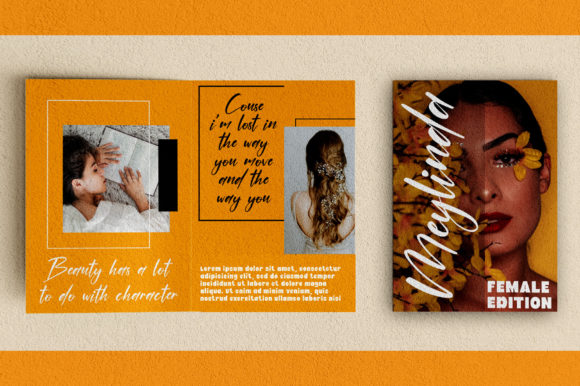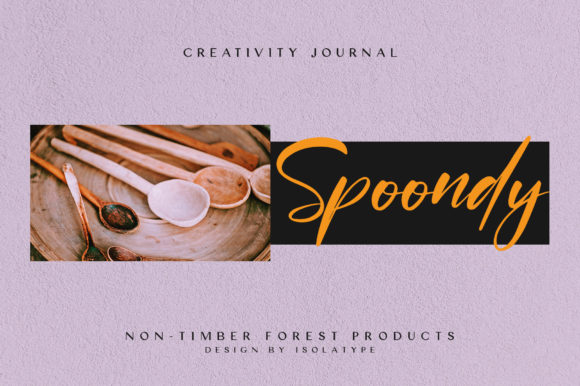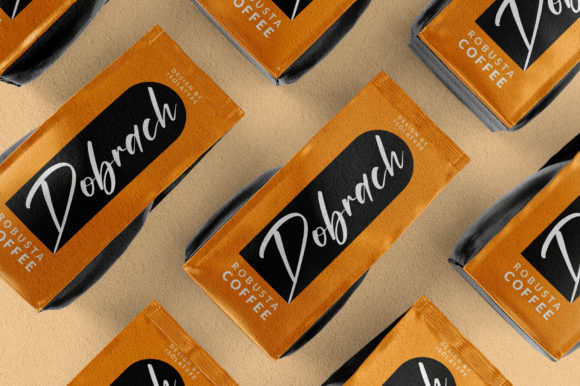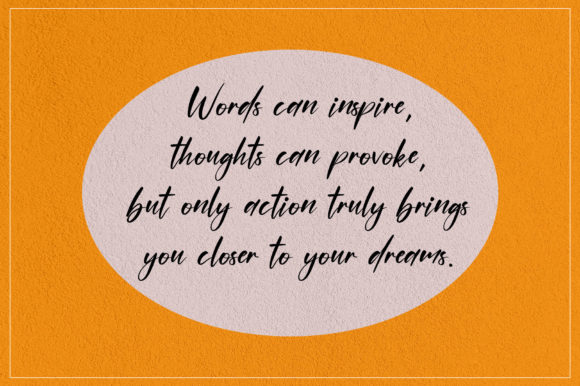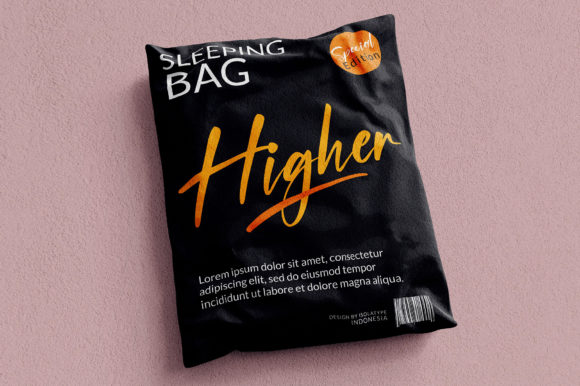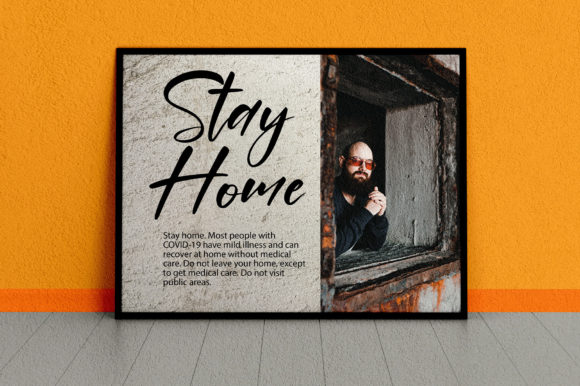
The Ultimate Guide to Ganboster Font: Elevate Your Designs with a Casual yet Trendy Touch
I’ll never forget the moment I stumbled upon the perfect font for a client’s project. It was a casual, handwritten font that added a touch of nostalgia and playfulness to the design. That font was Ganboster, and it instantly became my go-to for any project that needed a stylish and confident vibe. In this article, I’ll share my love for Ganboster, its features, and how to make the most of it in your designs.
An Honest Review of Ganboster Font
What I Love About Ganboster ✨
- ✅ Unique and trendy: Ganboster has a distinct, casual feel that’s perfect for headlines and logotype projects.
- ✅ Dynamic and confident: The font exudes a sense of strength and energy, making it ideal for designs that need a bold statement.
- ✅ Nostalgic character: Ganboster has a retro vibe that adds a touch of warmth and personality to your designs.
- ✅ Highly versatile: It works well for a wide range of projects, from branding and advertising to packaging and digital media.
- ⚠️ Limited use in body text: While Ganboster is perfect for headlines, it may not be the best choice for body text due to its casual, handwritten nature.
- ⚠️ Some letter combinations may not work well: As with any font, some letter combinations may not flow smoothly, so it’s essential to test and adjust as needed.
The Backstory of Ganboster Font
While the true story of Ganboster’s creation may be unknown, it’s easy to imagine a designer with a passion for handwritten fonts and a desire to create something unique and trendy. Perhaps they drew inspiration from vintage signs, street art, and graffiti, combining these influences to create a font that’s both nostalgic and modern.
| Font Name | Ganboster Font |
| What is Ganboster font best used for? | Ganboster is perfect for headlines, logotype projects, and any design that needs a casual, trendy touch. |
| Is Ganboster suitable for body text? | While Ganboster can be used for body text, it’s not the best choice due to its casual, handwritten nature. It’s better suited for headlines and titles. |